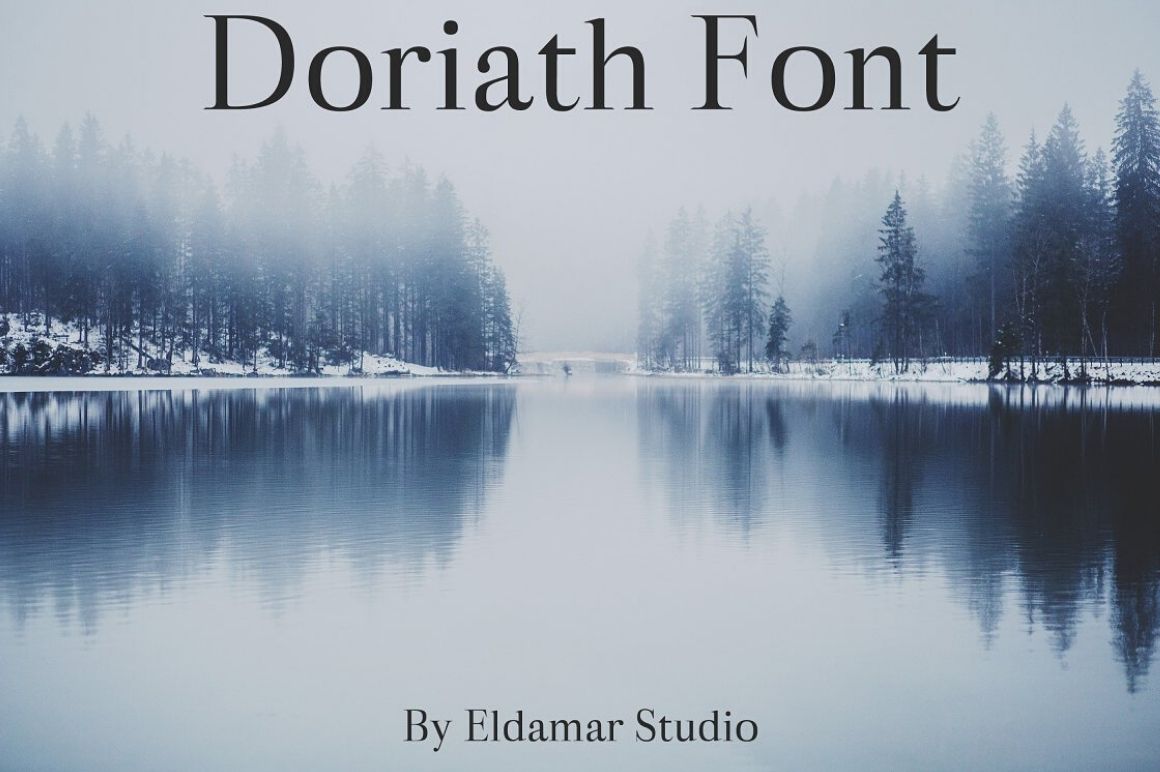
Doriath Font
Doriath Font is an attractive handwritten commercial use font. An iconic font perfect for logos, watermark, book covers, branding, invitations, resumes and more.
Uppercase and Lowercase